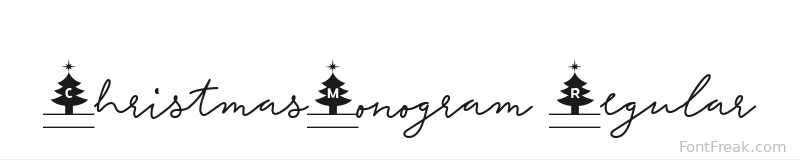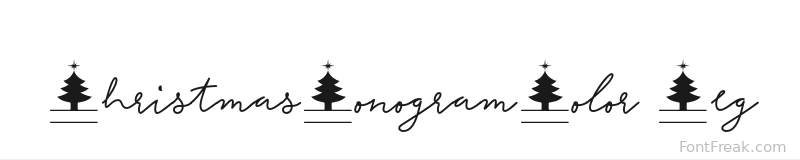
ChristmasMonogram-Regular
ChristmasMonogramColor-Reg
ChristmasMonogram-Regular, designed by Misti Hammers, is a delightful script font that captures the essence of festive cheer. This decorative typeface features elegant, flowing letterforms that evoke a sense of warmth and celebration, making it perfect for holiday-themed projects. The font exhibits a medium stroke weight with gentle contrasts that add a touch of sophistication while maintaining legibility. With its playful curves and whimsical decorative elements, such as stylized Christmas trees and stars, ChristmasMonogram-Regular is both visually appealing and versatile.
This font is particularly well-suited for a range of holiday-related applications. It shines in wedding invitations, where its charming script can convey romance and festivity. Small business owners can use it for creating eye-catching product labels or promotional materials during the holiday season. Additionally, ChristmasMonogram-Regular is ideal for greeting cards, helping to convey heartfelt messages with a personalized touch. Graphic designers may find it valuable for seasonal marketing campaigns or social media graphics that aim to engage audiences with a festive flair.
What sets ChristmasMonogram-Regular apart is its ability to blend playfulness with elegance, making it a standout choice for any project that celebrates the joy of the holiday season. With its distinctive style and versatility, the ChristmasMonogram-Regular font free download is an excellent addition to any designer's font collection, ensuring that your festive creations will leave a lasting impression.